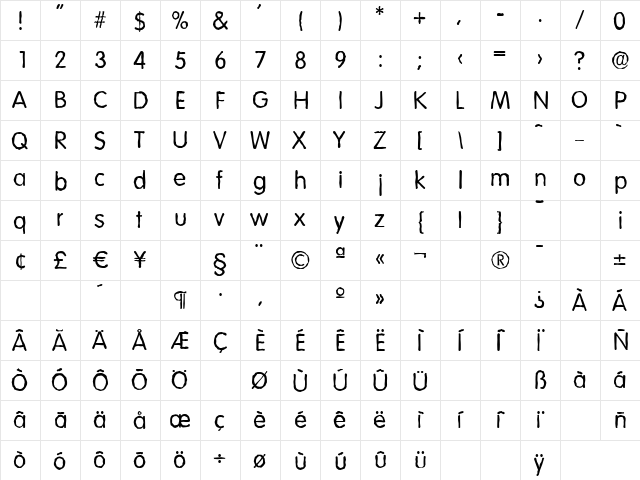
VolkswagenAntique Regular
Design Context for VolkswagenAntique Typeface
VolkswagenAntique wears its vintage influences proudly, with letterforms that recall mid-century signage, classic packaging, and nostalgia-driven design.
Font Pairing: Combine VolkswagenAntique with a simple slab or neutral sans — period-accurate companions reinforce the vintage feel without competing for attention.
Pro Tip: Lean into VolkswagenAntique's period character by pairing it with aged paper textures, muted colour palettes, and vintage illustration styles.